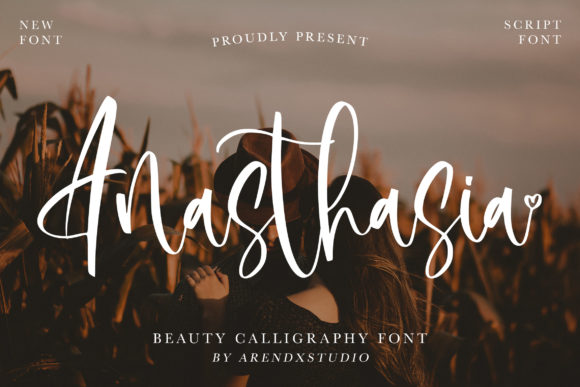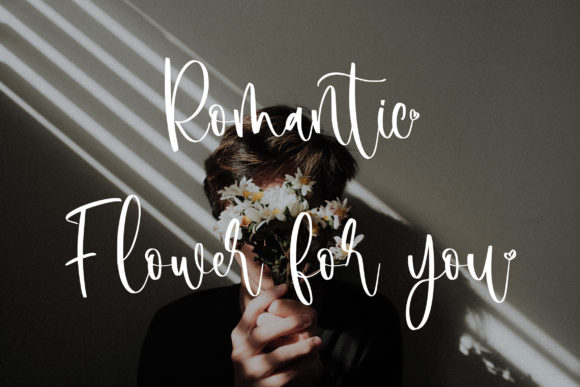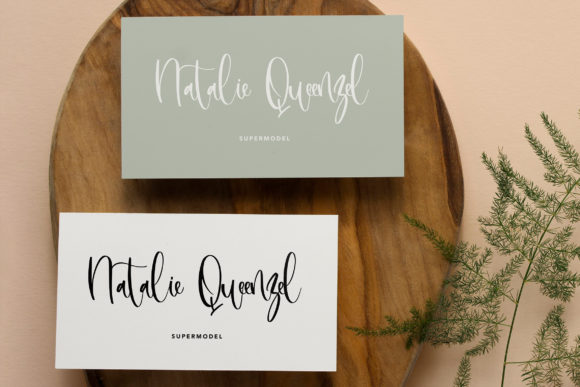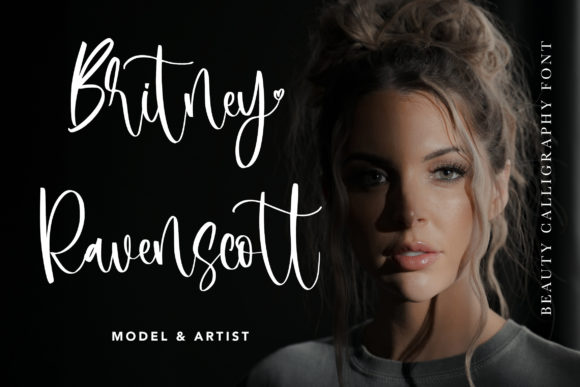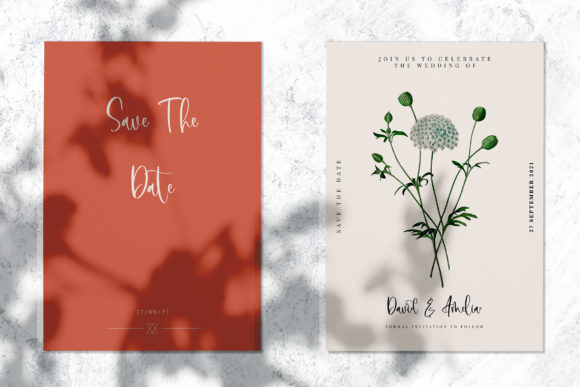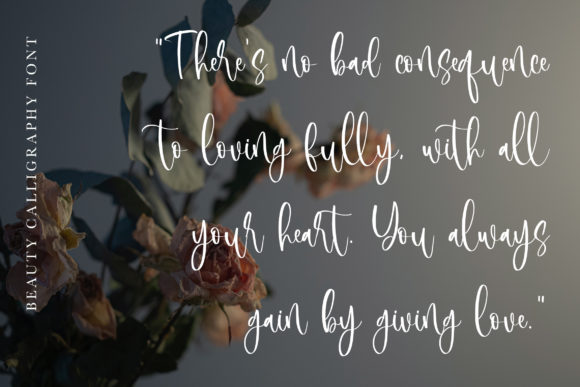
Anasthasia Font
About Anasthasia Font
Anasthasia is a stylish, casual and trendy handwritten font. This font was particularly crafted for those who need a beautiful and refreshing look to their designs.